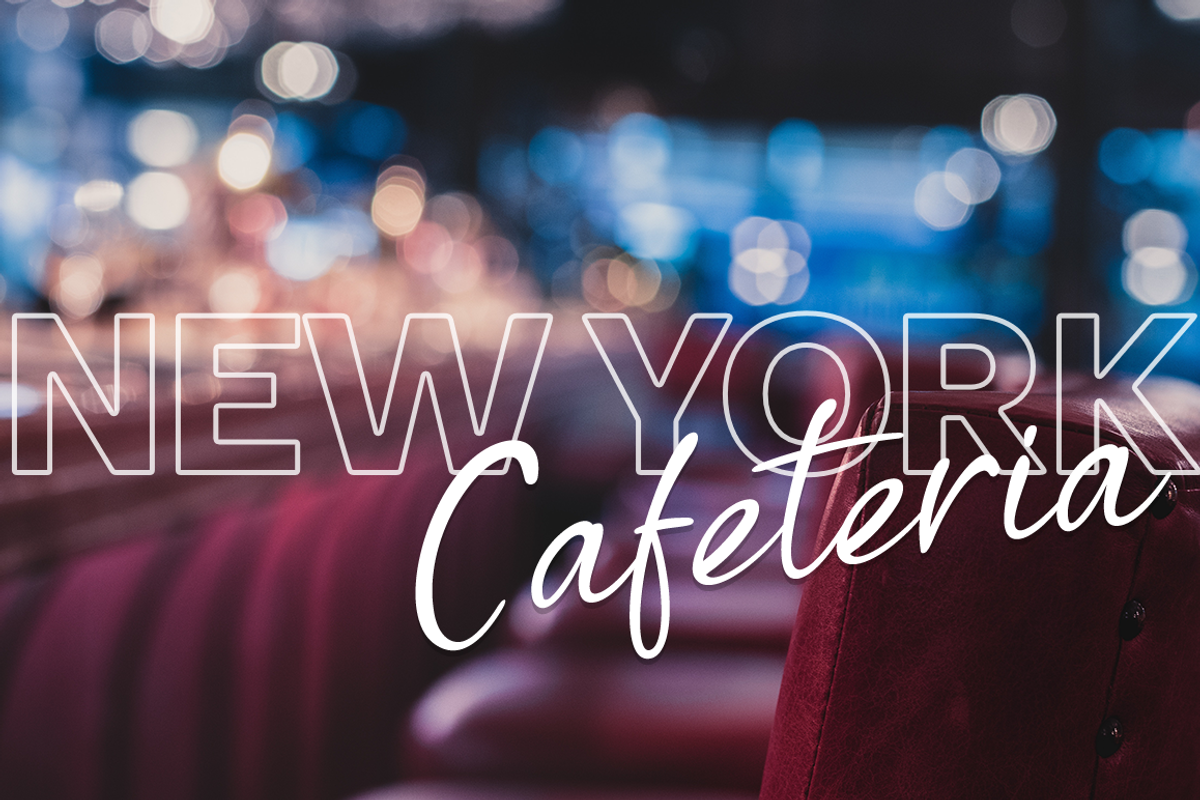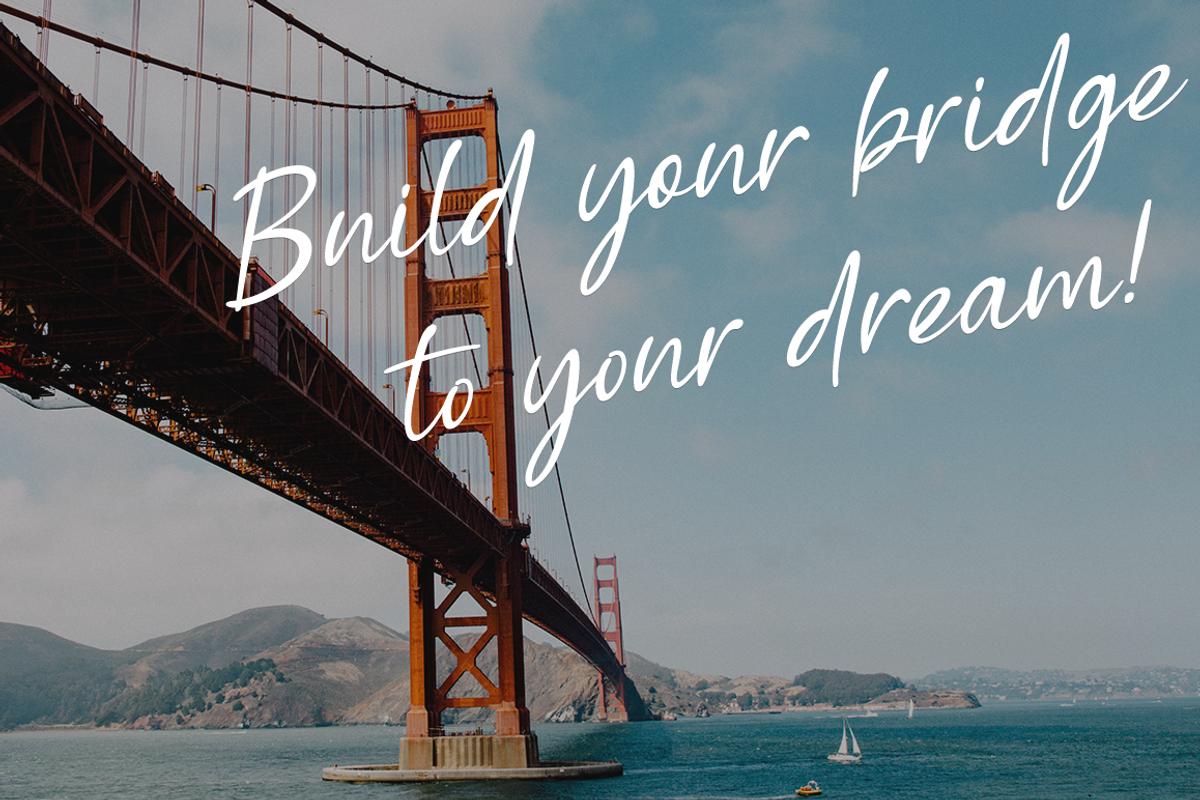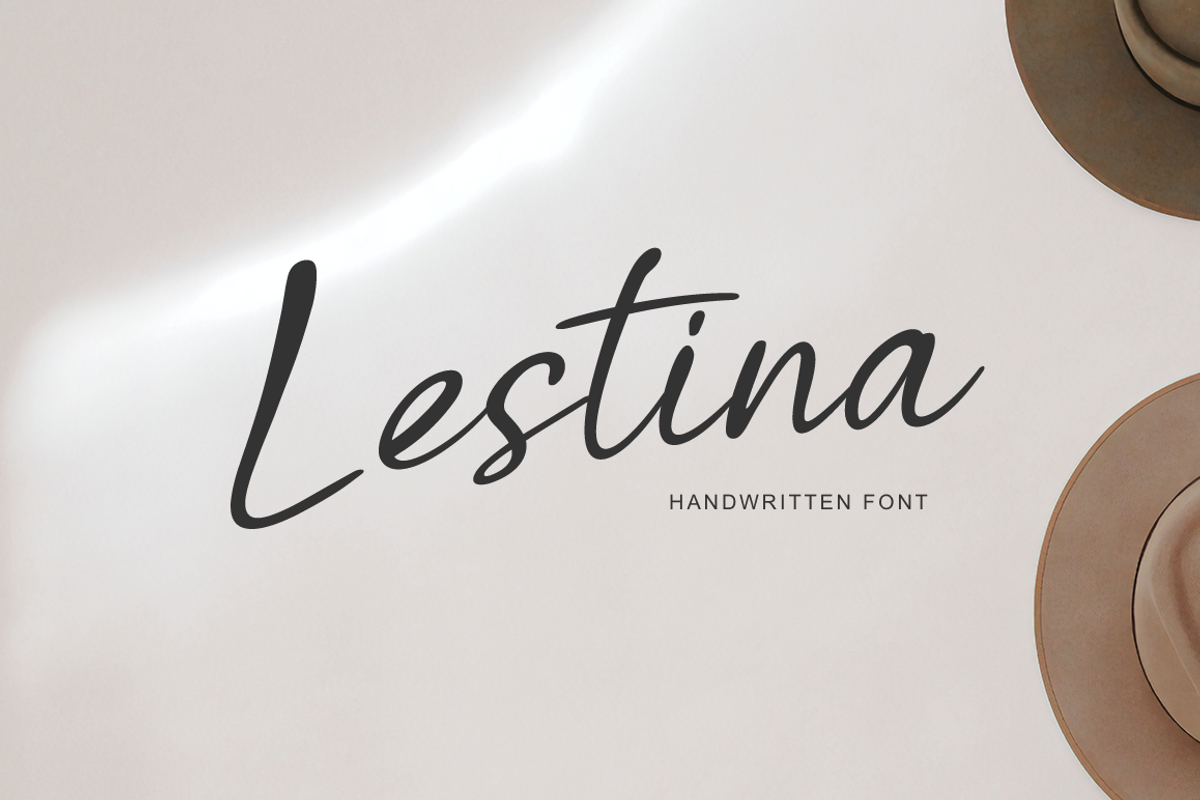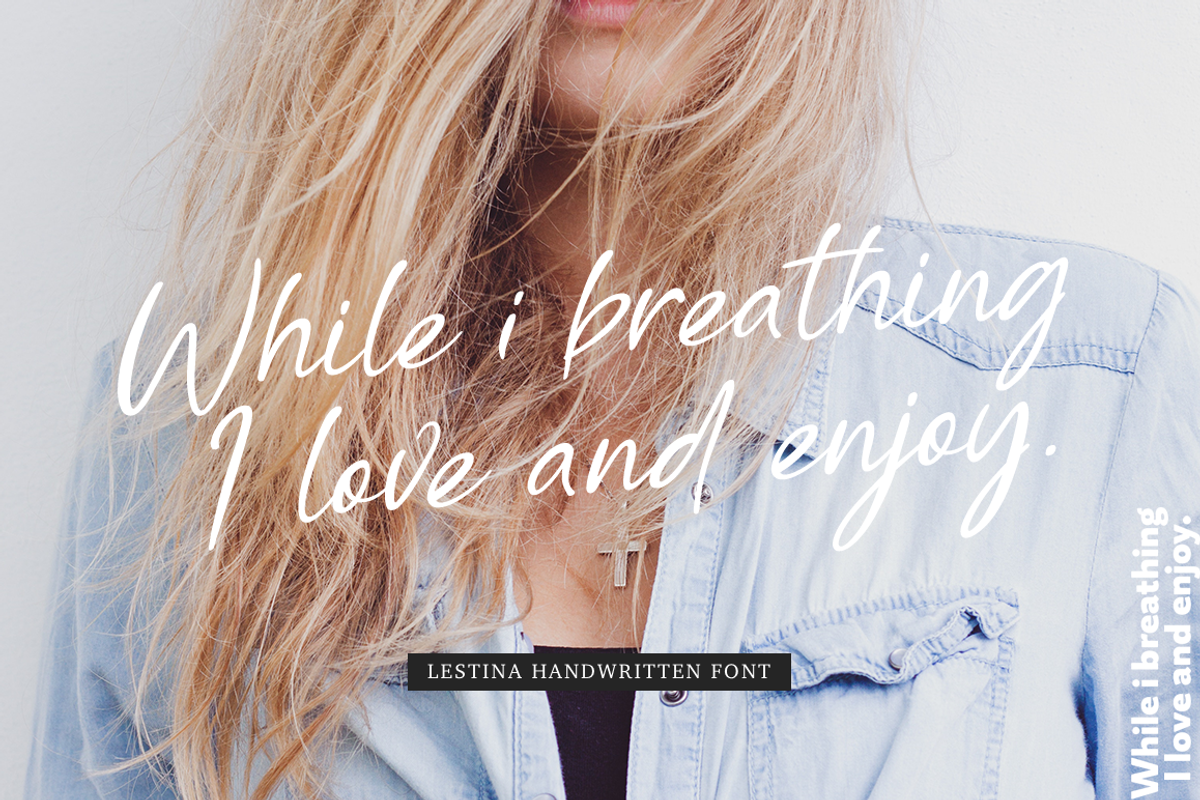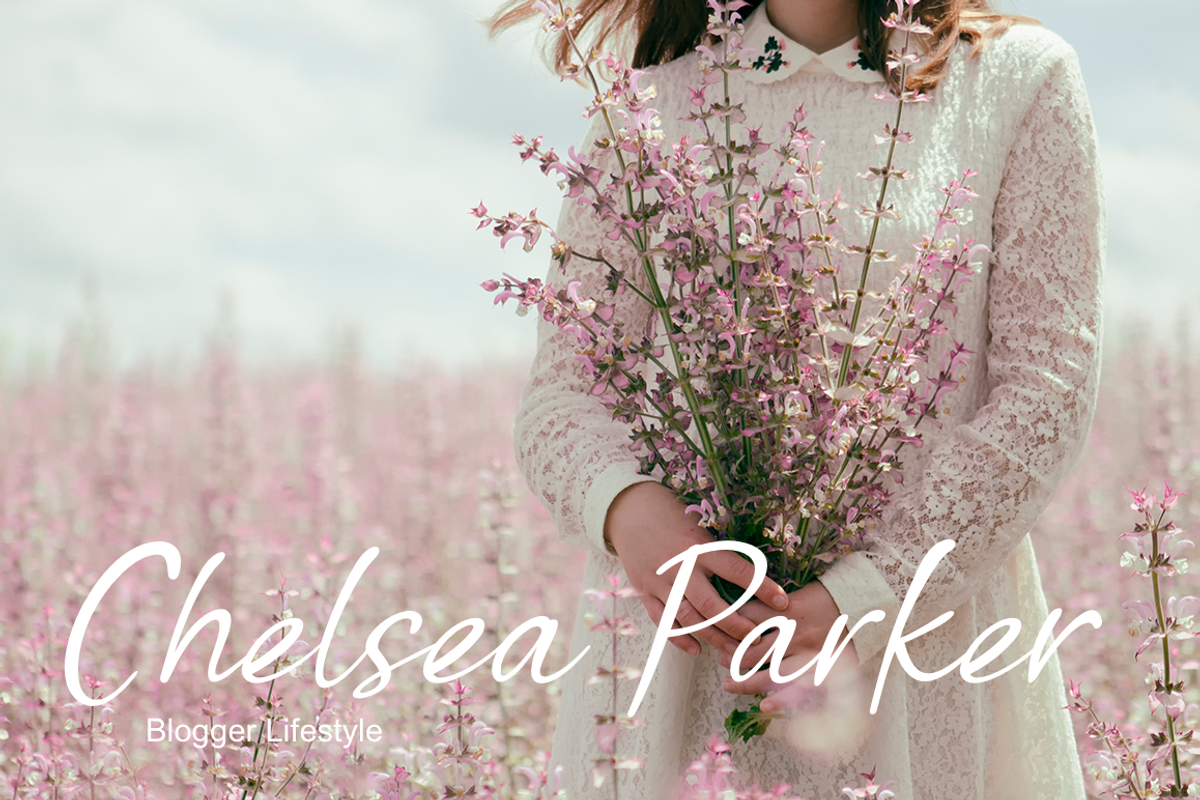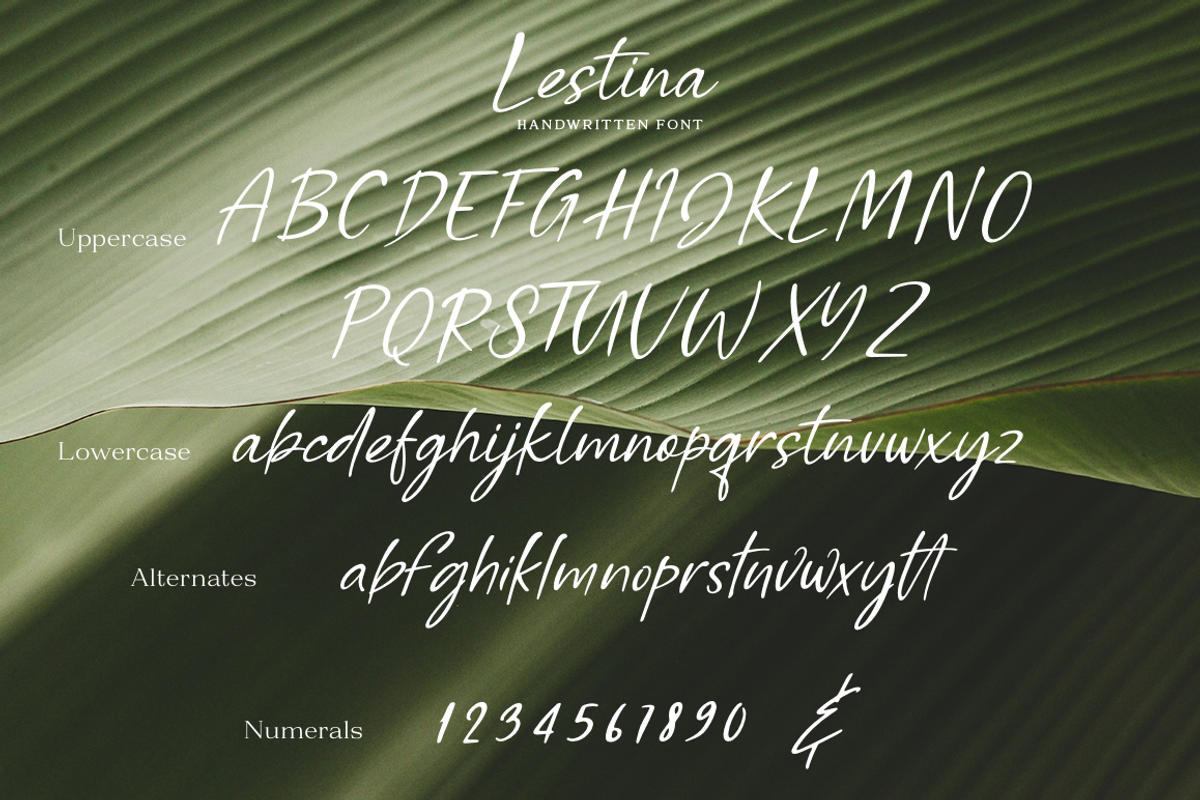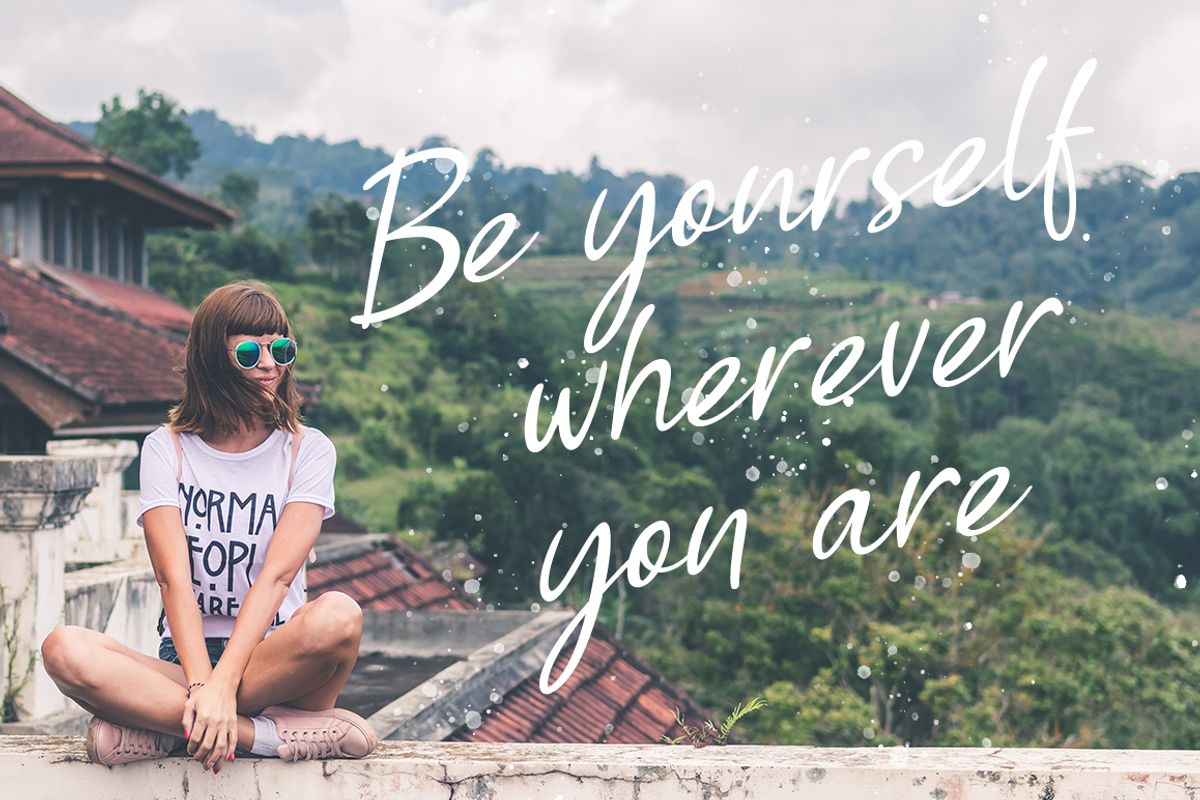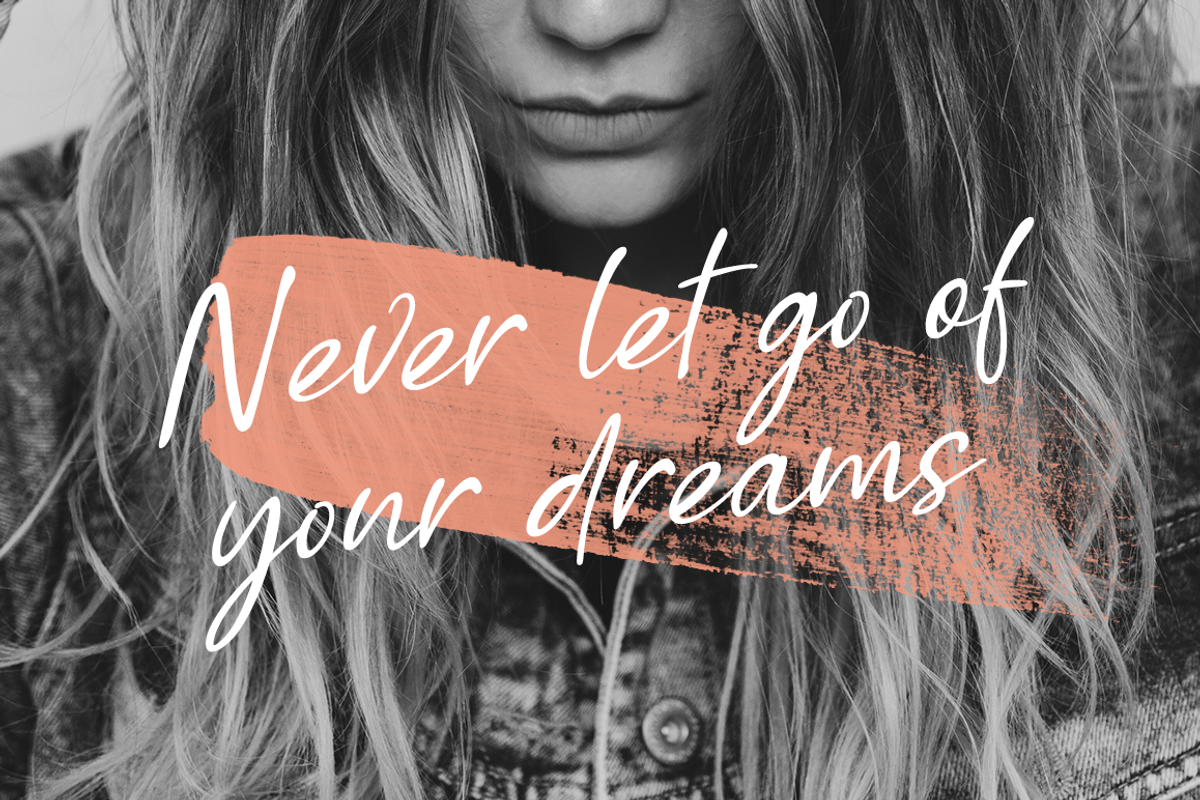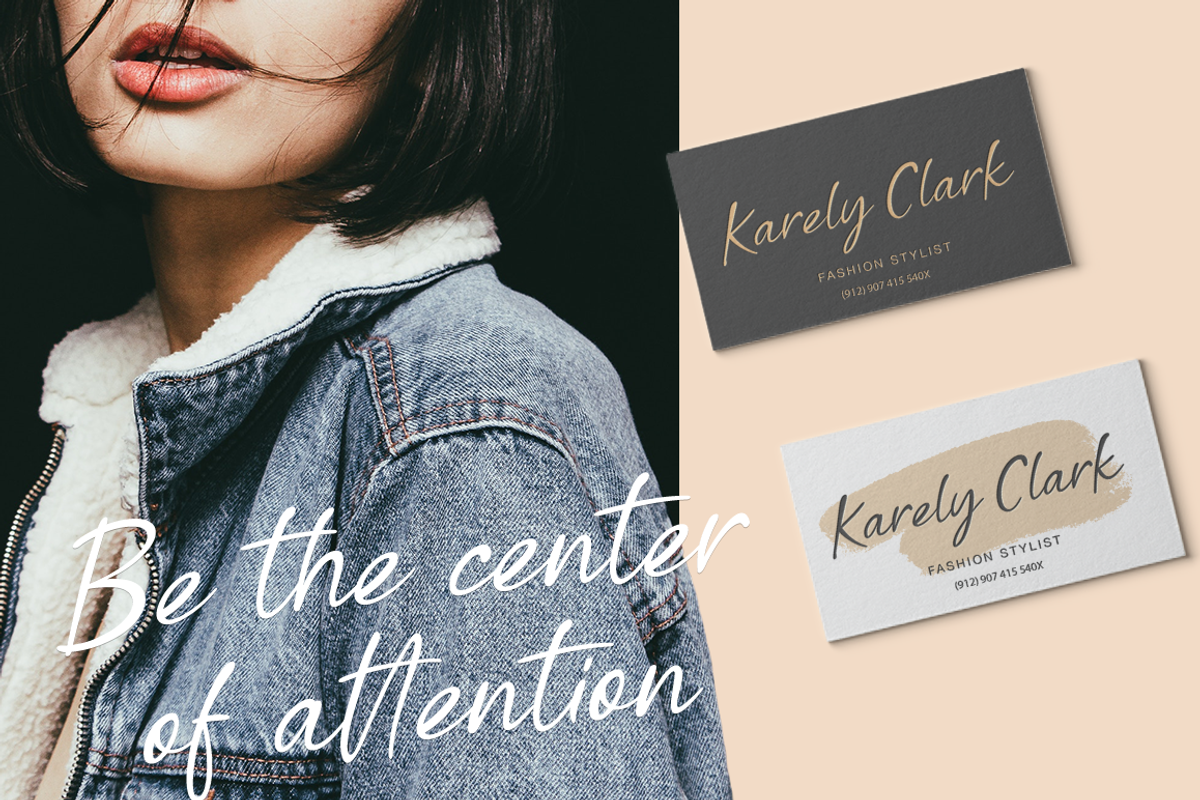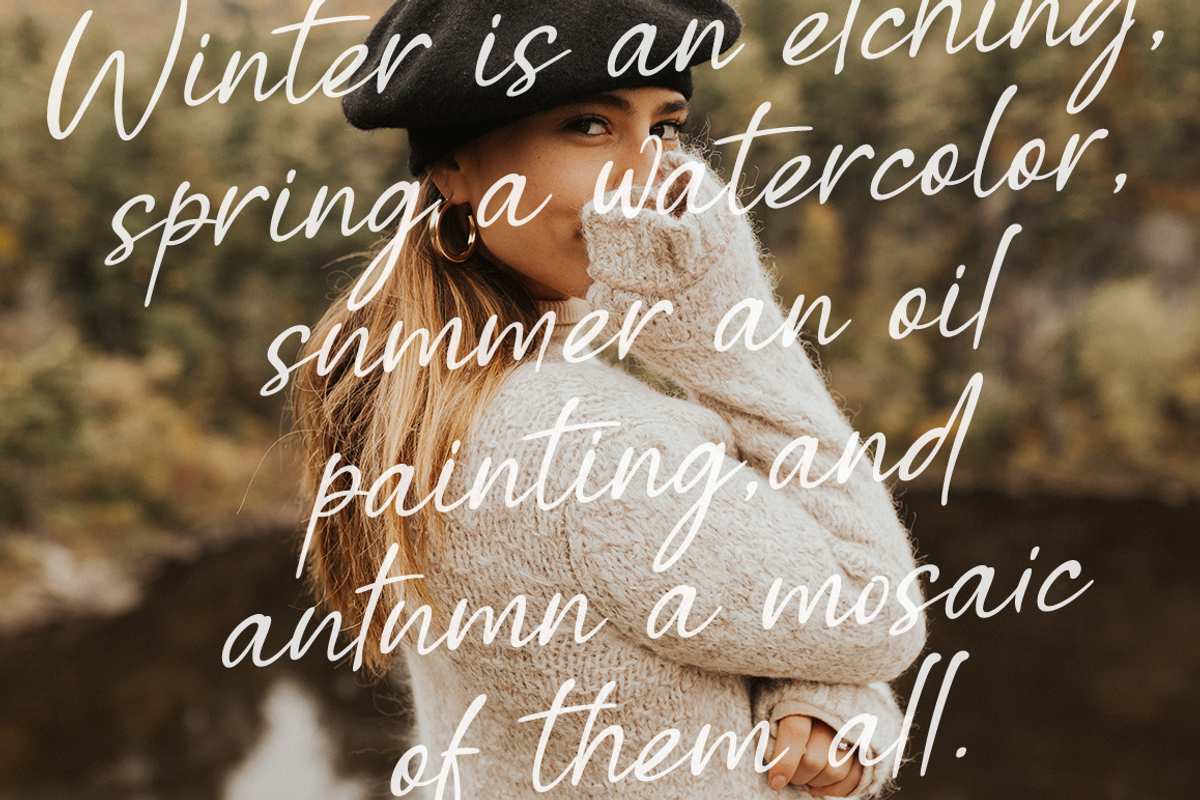
Lestina
Lestina This is a beautiful and elegant hand drawn font, will emphasize your individuality in any project. You can also use them to create a logo or templates, invitations, blog, branding, marketing, book covers, magazines, advertising, stationery, logo design and much more. This font includes a basic set of letters and alternates, well as numbers, fractions, symbols and basic punctuation.
Following international symbols support: ÀÁÂÃÄÅĄÇĆÈÉÊËĘÌÍÎÏÐÑŃŁÒÓÔÕÖØÙÚÛÜŚŠŸÝŹŻŽßàáâãäåçèéêëìíîïðñòóôõöøùúûüýÿąćęłńśšźżž